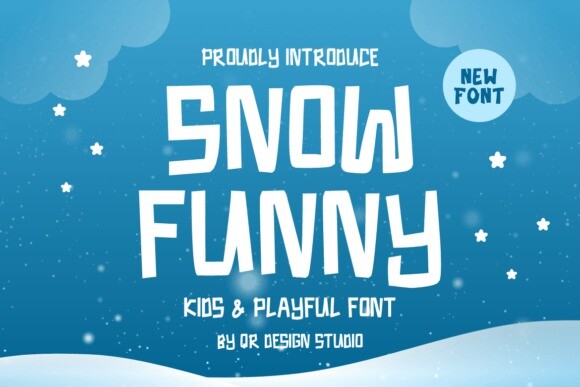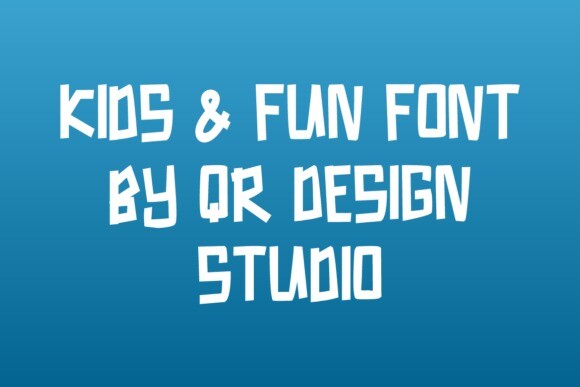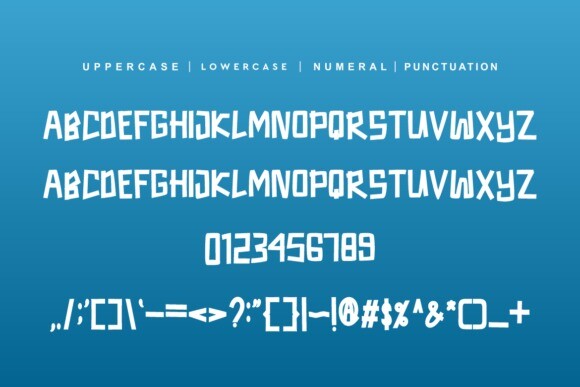
Snow Funny Font
Snow Funny Font is a bold and authentic display font.
The font is suitable for any branding project like logo, sport, and many more.
Outstanding in a wide range of contexts.